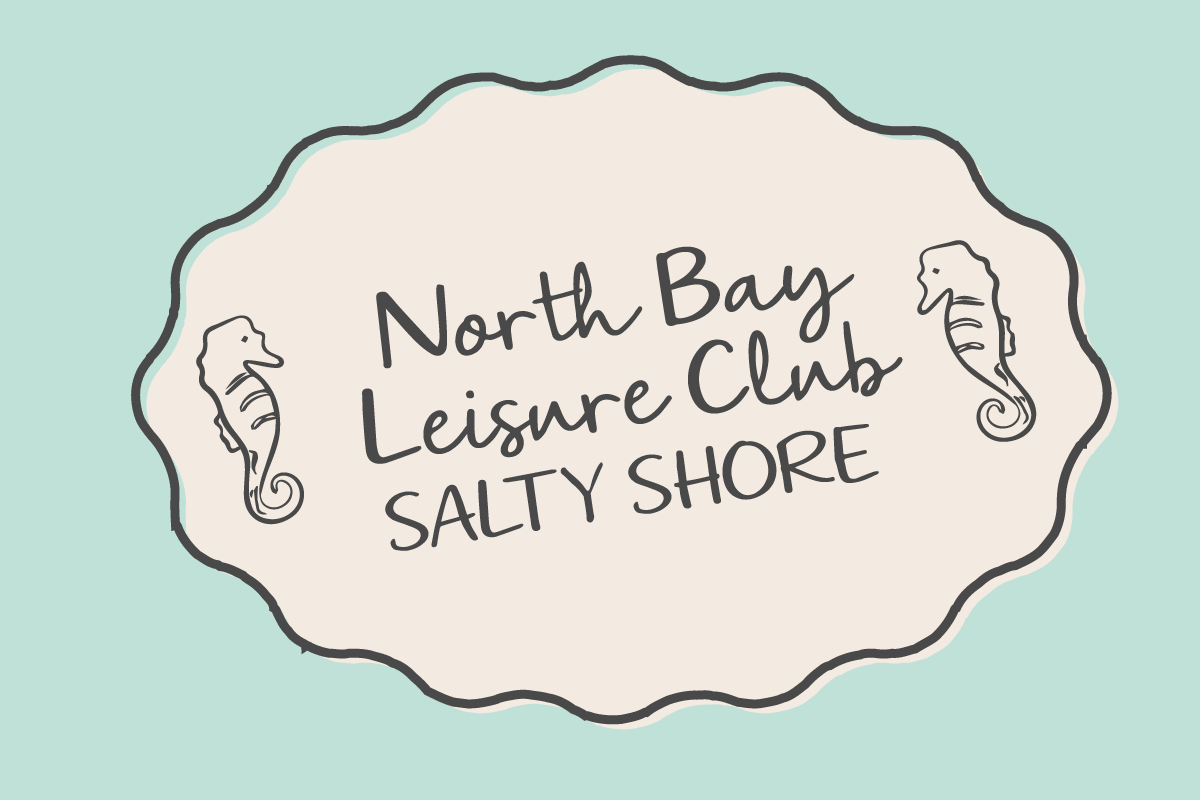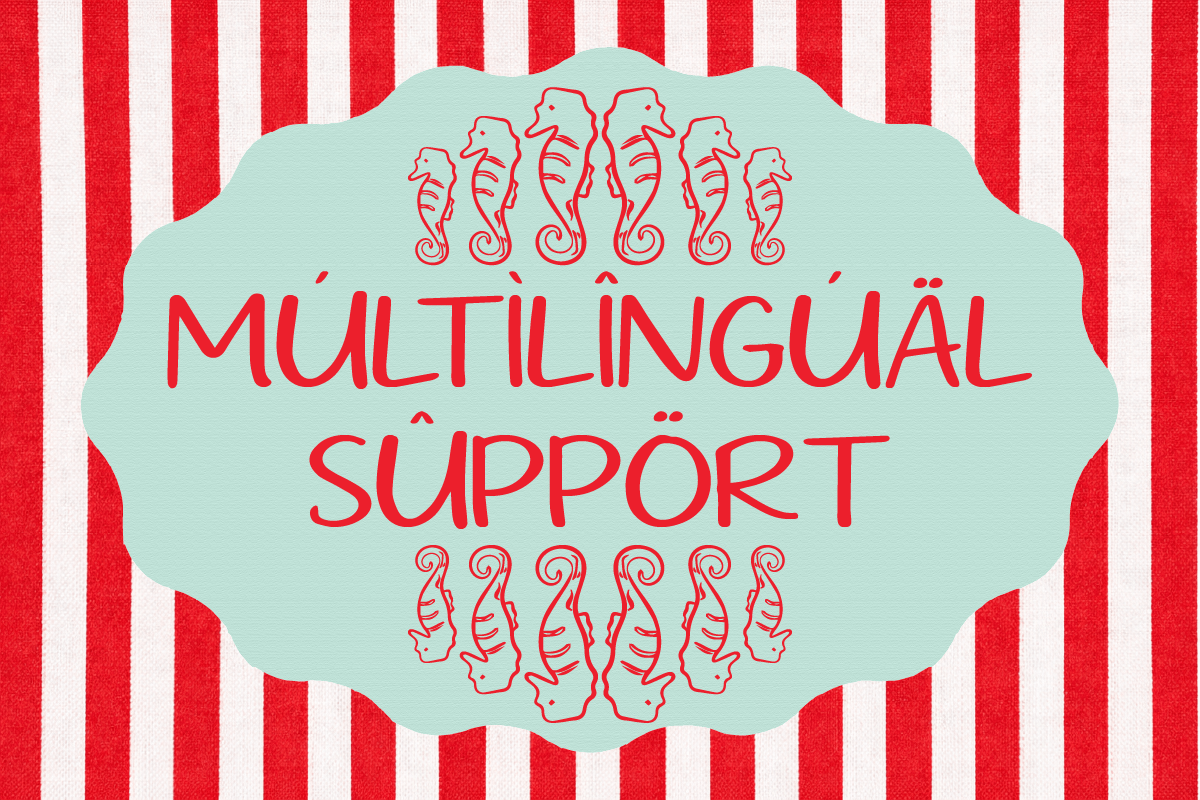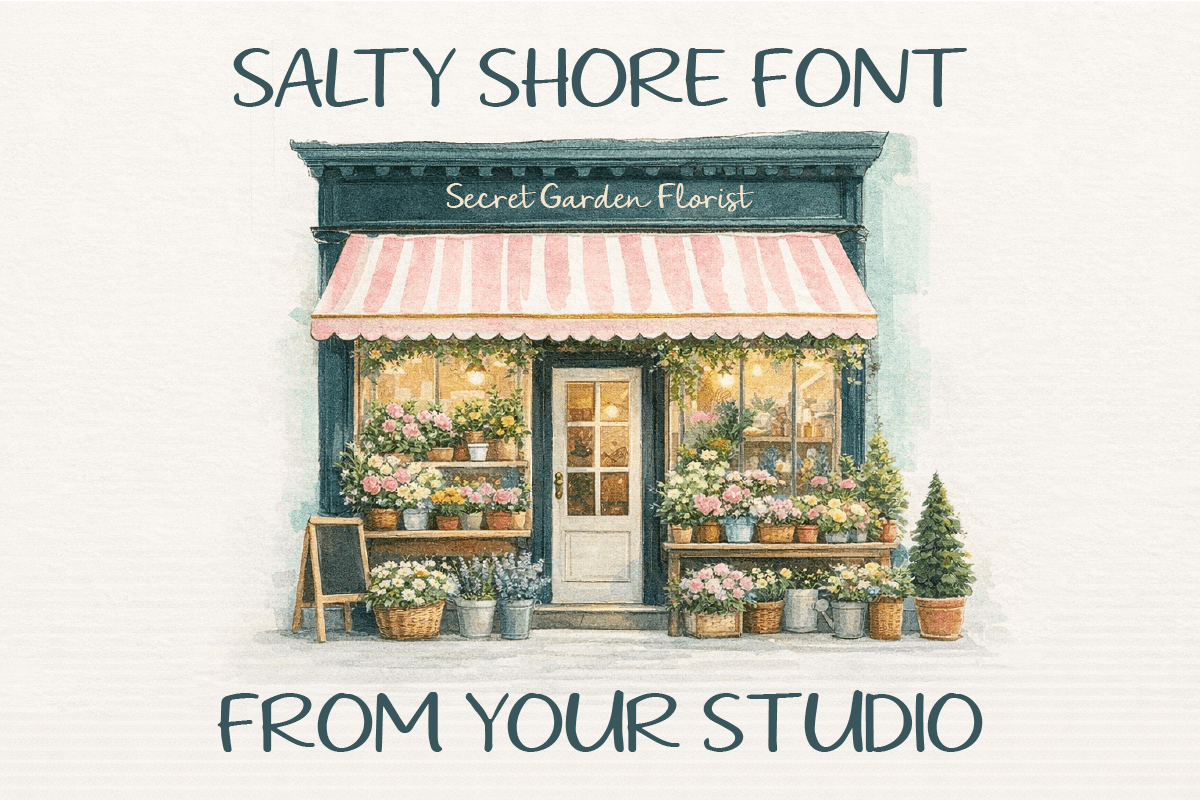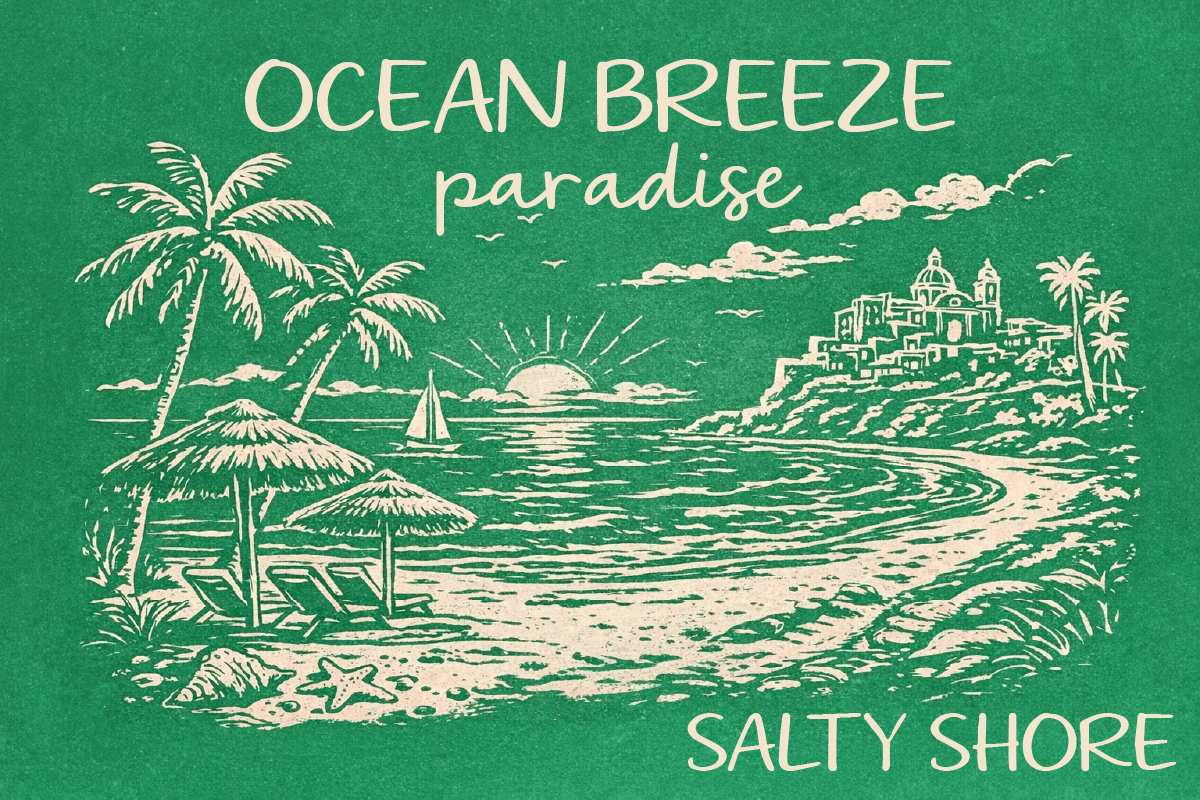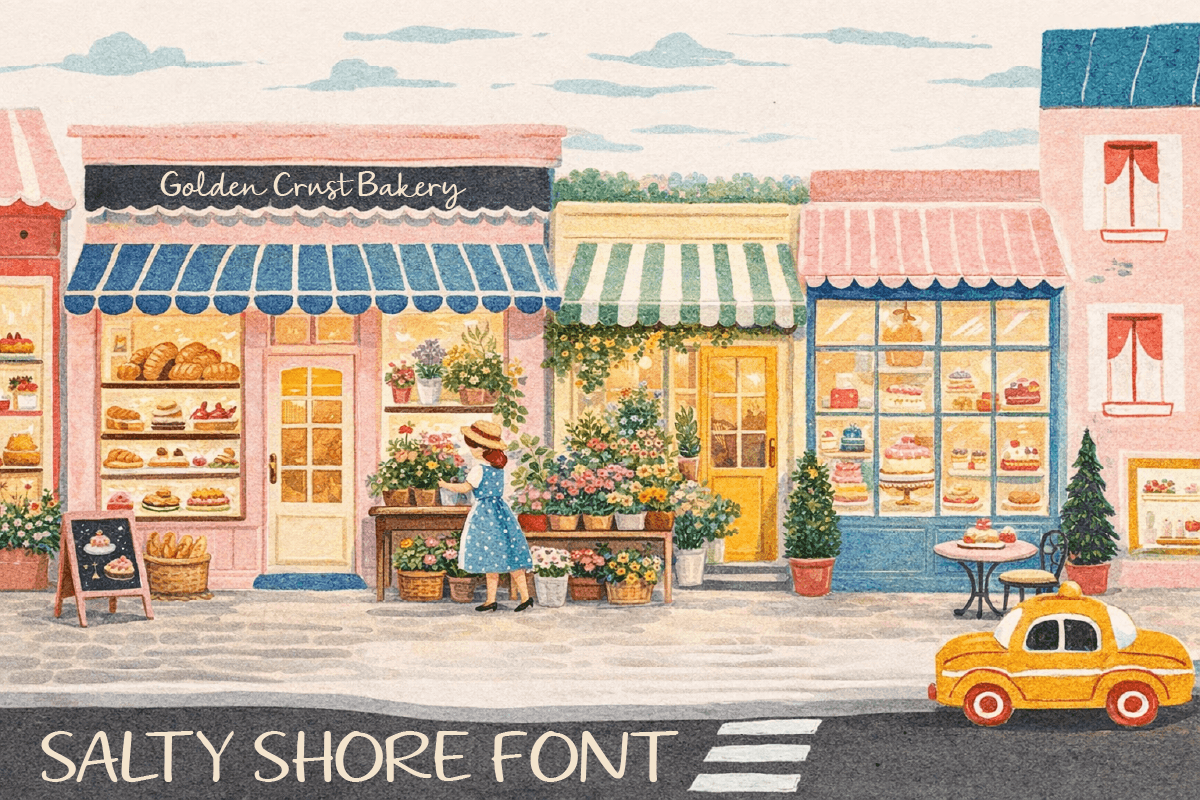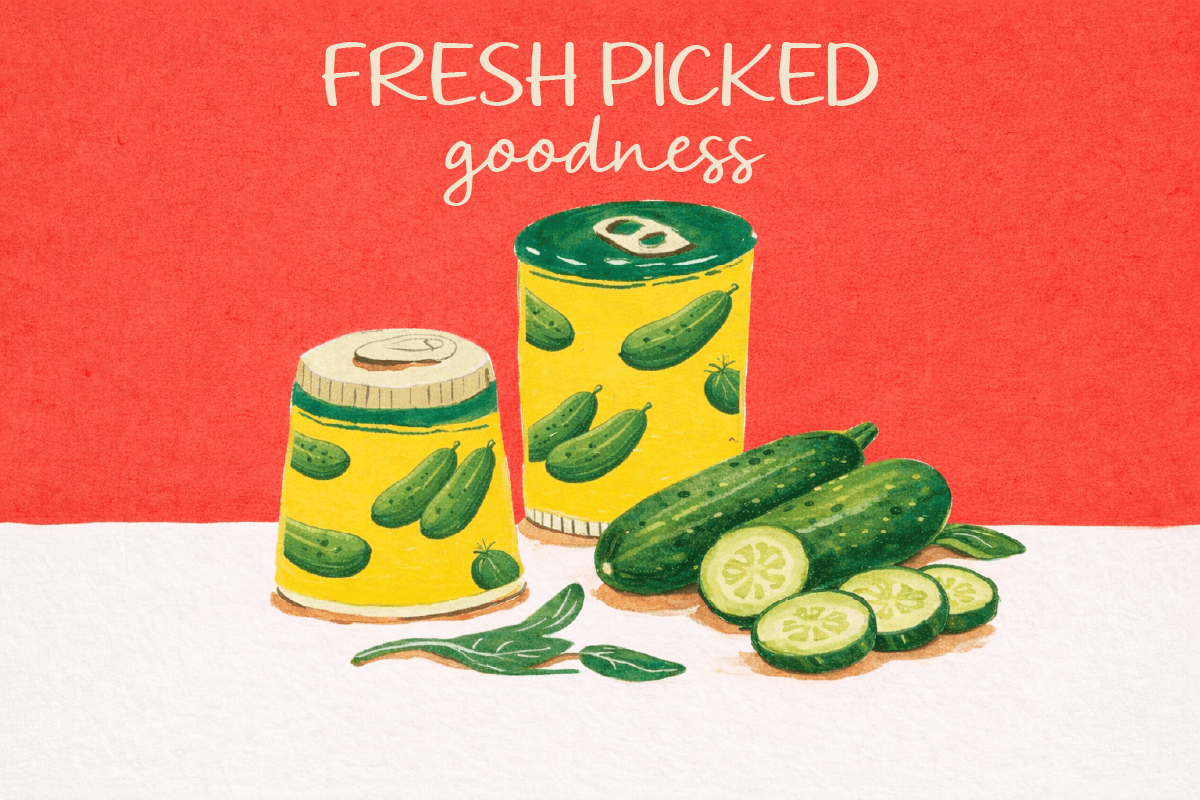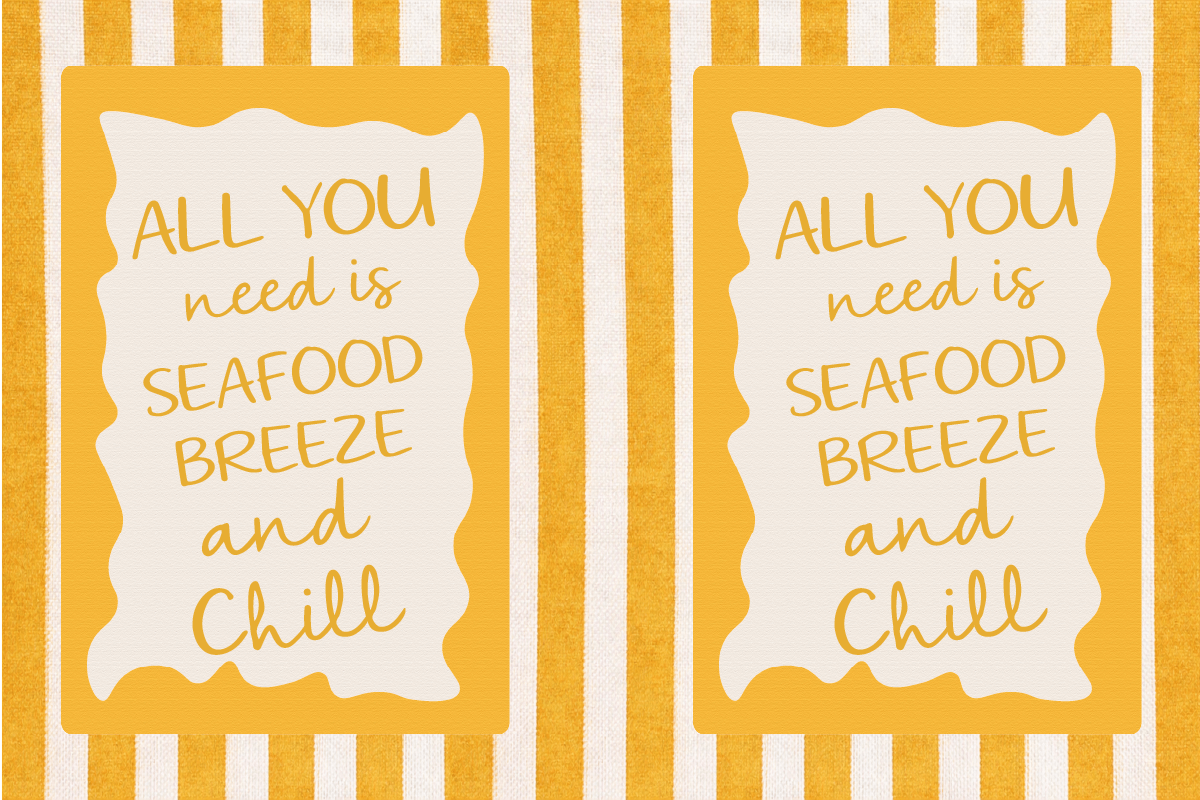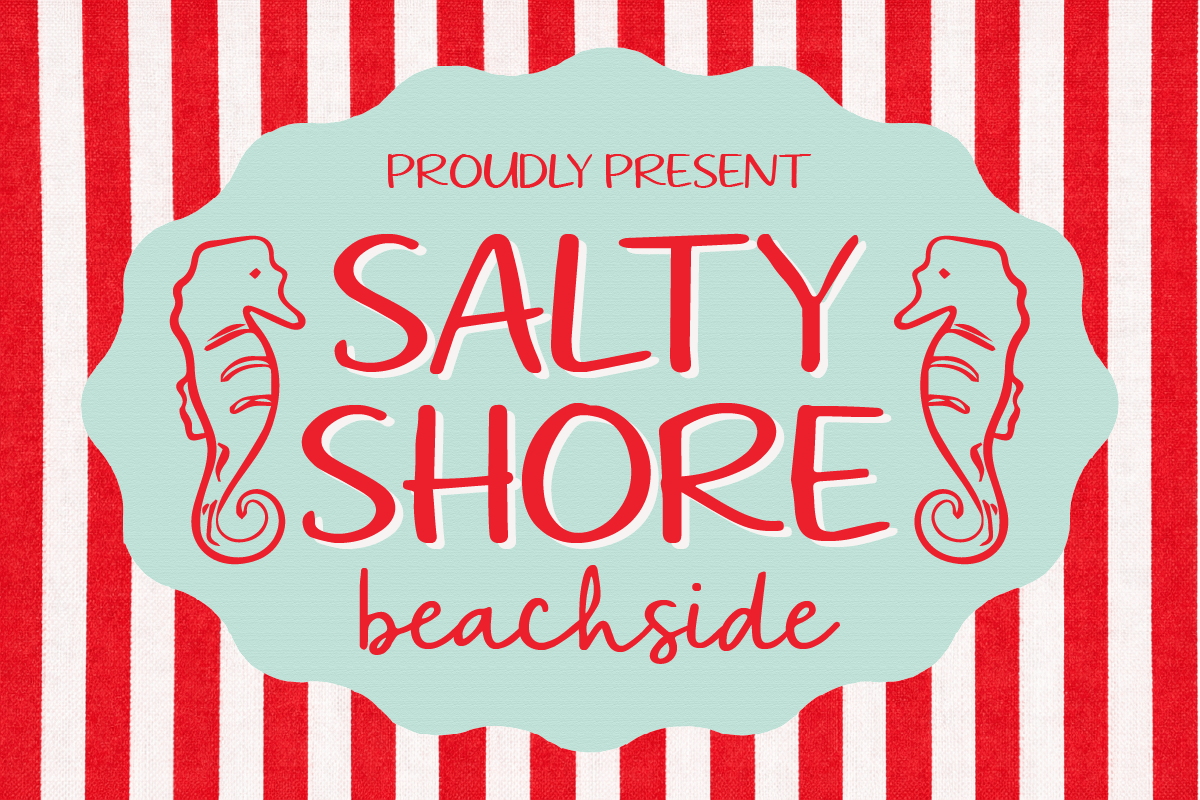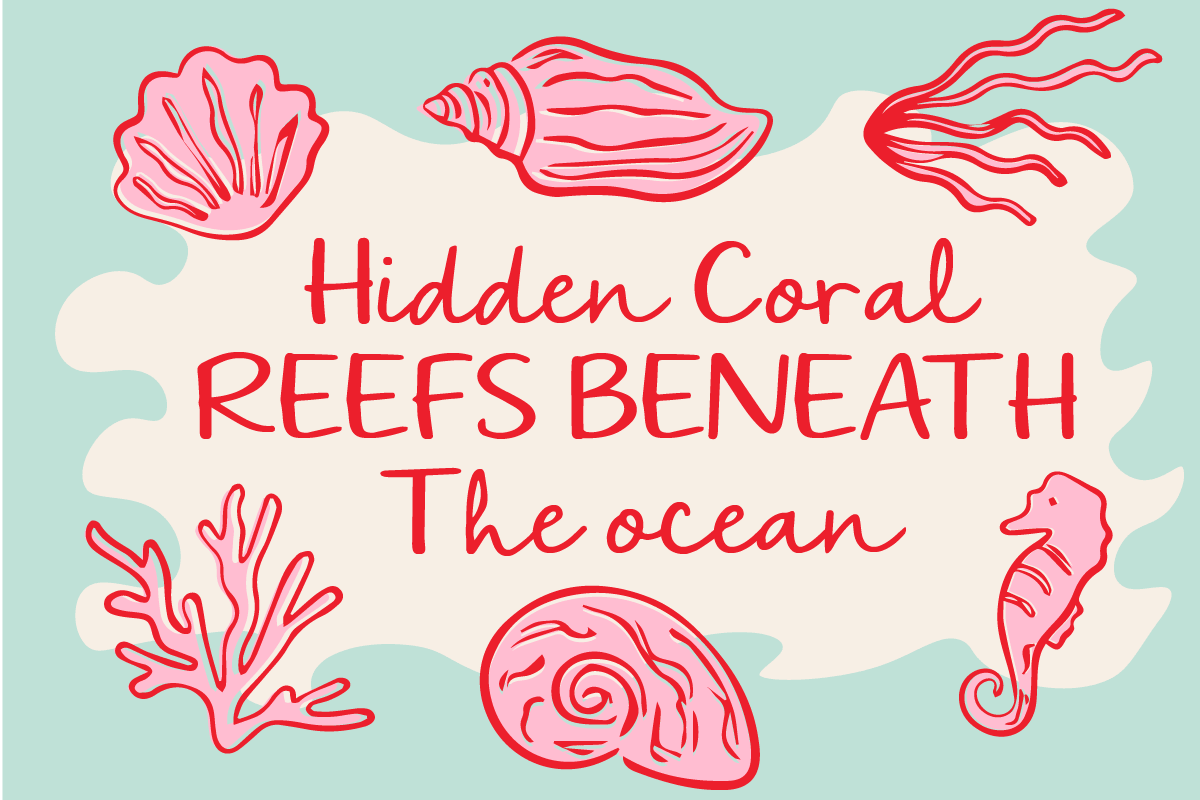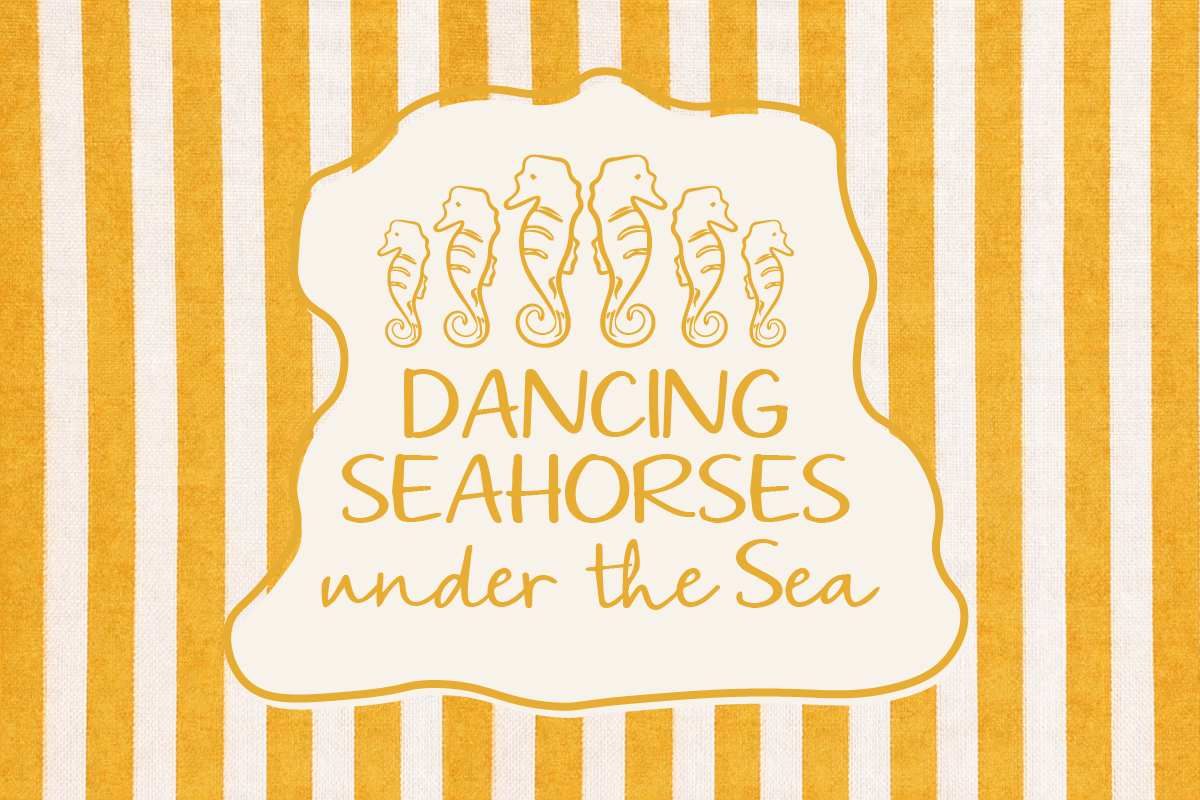
Salty Shore Beachside - Vintage Font
Introducing Salty Shore Beachside - Vintage Handwritten Font
Salty Shore Beachside is a vintage handwritten display font inspired by sunny days, ocean breezes, and relaxed coastal vibes. With its casual strokes, friendly shapes, and hand-drawn charm, this font captures the carefree spirit of beachside living. Its natural flow and approachable style make every word feel warm, fun, and inviting.
Perfect for summer branding, beach-themed designs, travel projects, packaging, logos, posters, and social media graphics, Salty Shore Beachside brings a fresh and cheerful personality to your work. Whether you're creating vacation visuals or tropical branding, this font delivers a laid-back and joyful aesthetic that stands out.
- Multilingual Support including Afrikaans, Albanian, Basque, Catalan, Danish, Dutch, English, Estonian, Faroese, Filipino, Finnish, French, Galician, German, Icelandic, Indonesian, Irish, Italian, Malay, Norwegian Bokmål, Portuguese, Spanish, Swahili, Swedish, Zulu